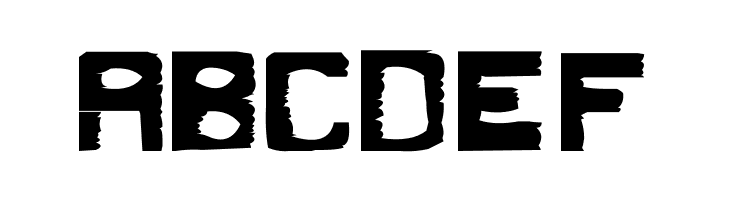
Street Ruins DEMO Regular Font
- Font: Street Ruins DEMO Regular
- No. of Characters:: 84
A bold, rounded font with a playful and friendly appearance.